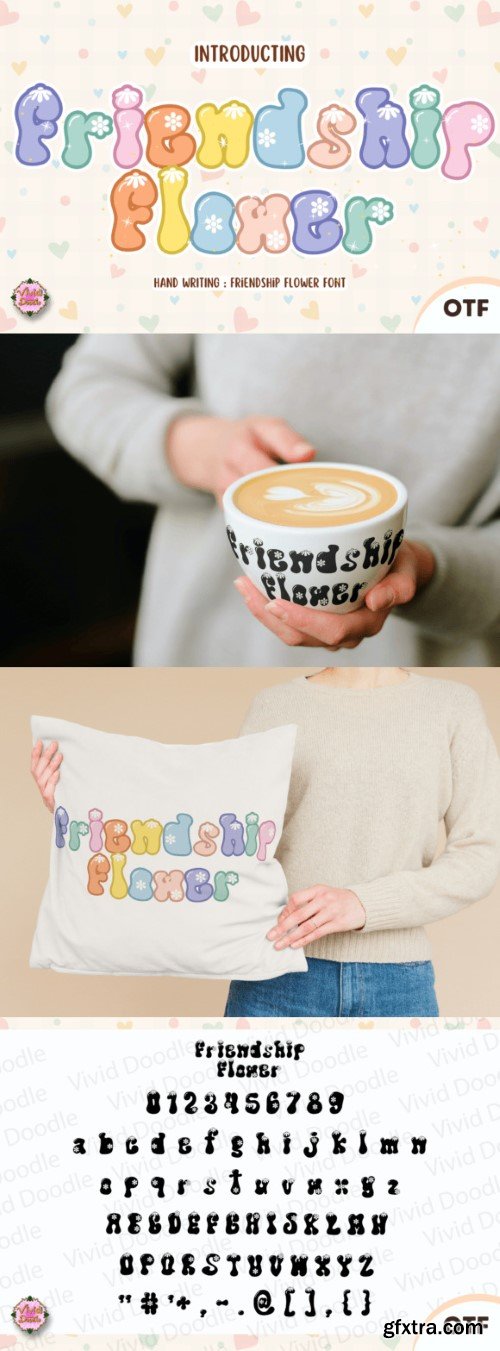
友谊花字体
Embark on a groovy journey with our “Friendship Flower” font – the quintessential choice for creative retro hippie design! Immerse your artwork in the free-spirited vibes of the past with this carefully crafted typeface. “Friendship Flower” captures the essence of the hippie era, bringing a psychedelic and laid-back flair to your creative projects. Elevate your designs with the eclectic and friendly character of this font, perfect for infusing your art with a touch of peace, love, and artistic nostalgia. Let the “Friendship Flower” font be your guide to a colorful and expressive retro revival in your creative endeavors.